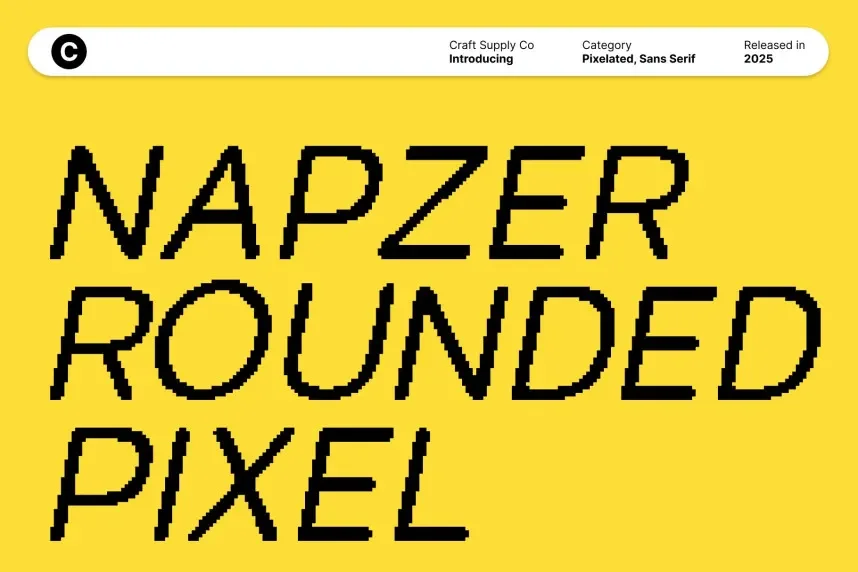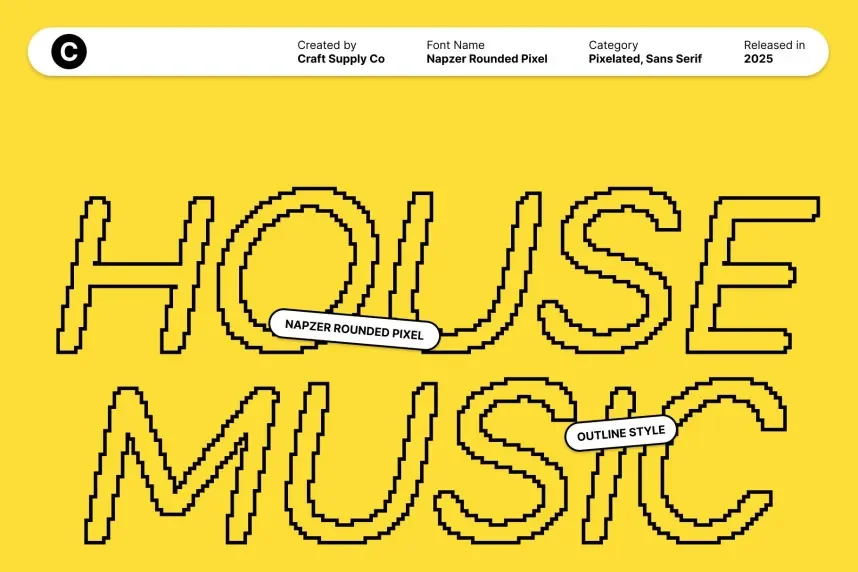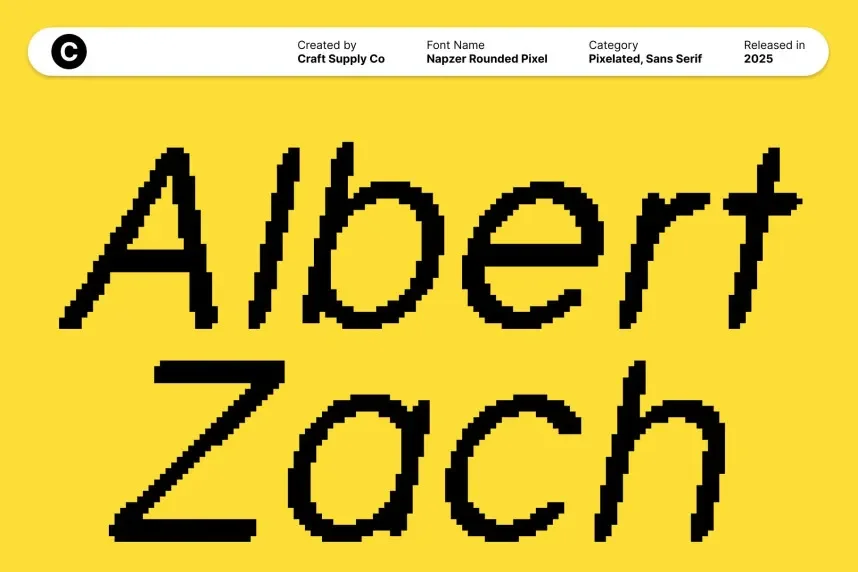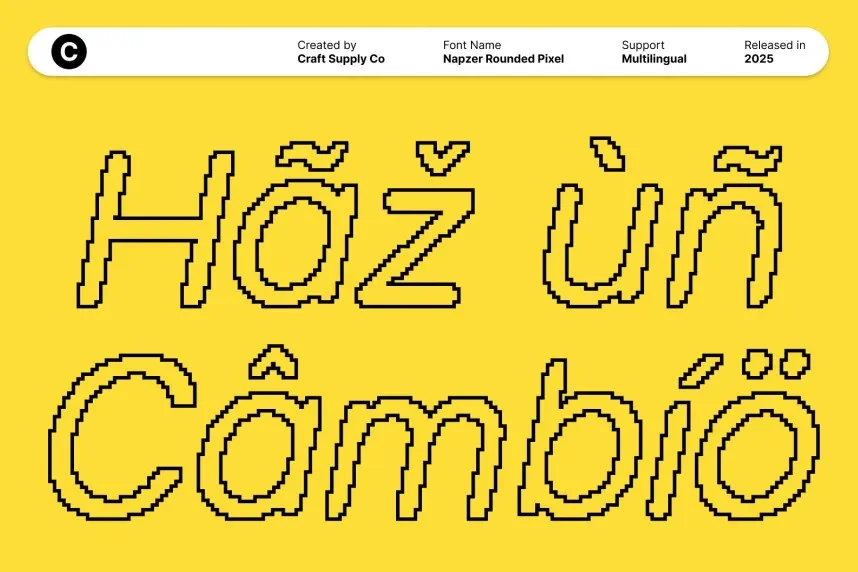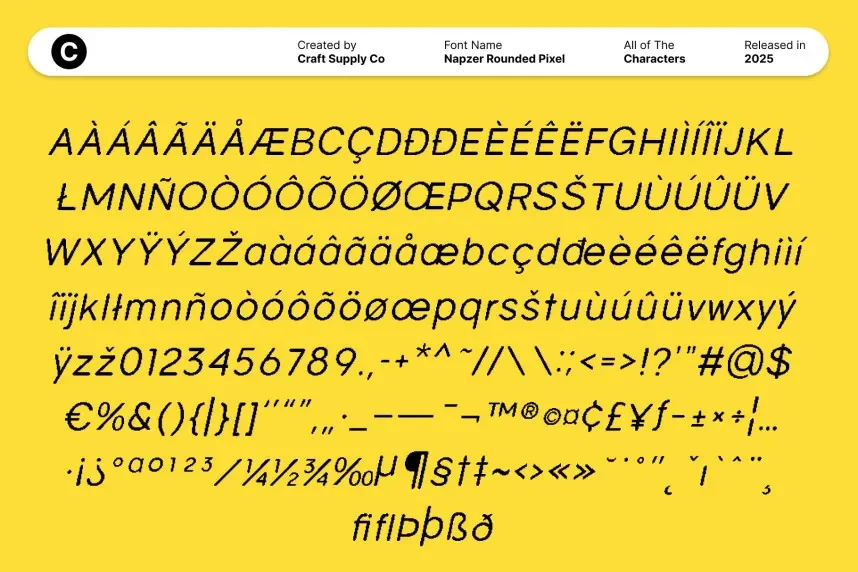
Napzer Rounded Pixel Font solves consistency issues in retro-themed digital designs and game-style interfaces.
This font belongs to the pixel font category, featuring grid-based letterforms with rounded edges. The rounded structure softens the rigid pixel layout, improving screen readability.